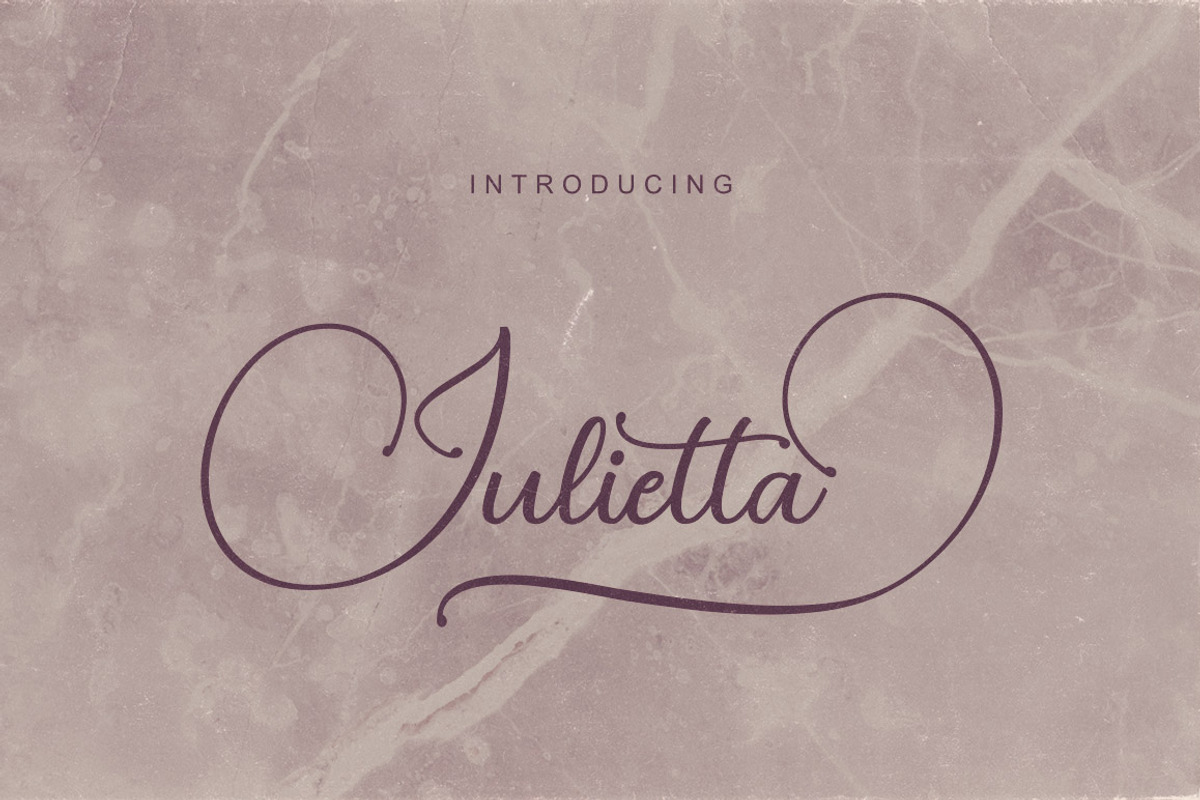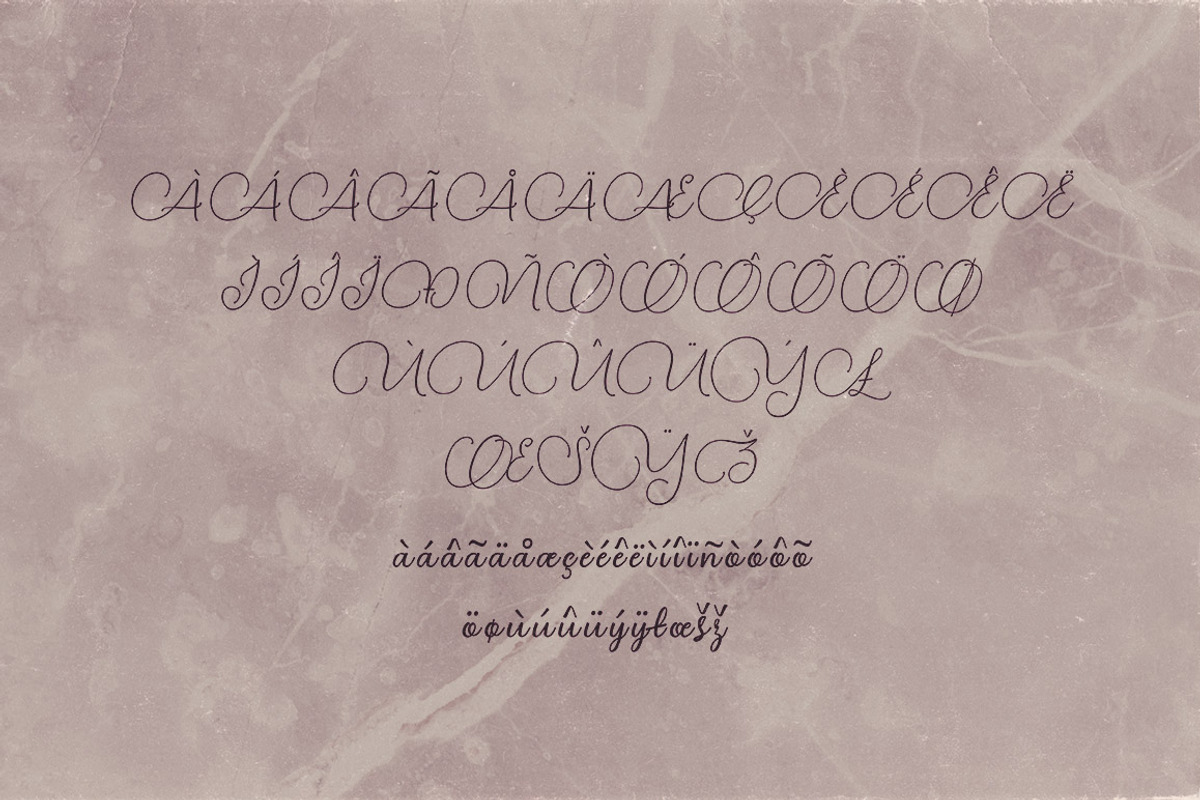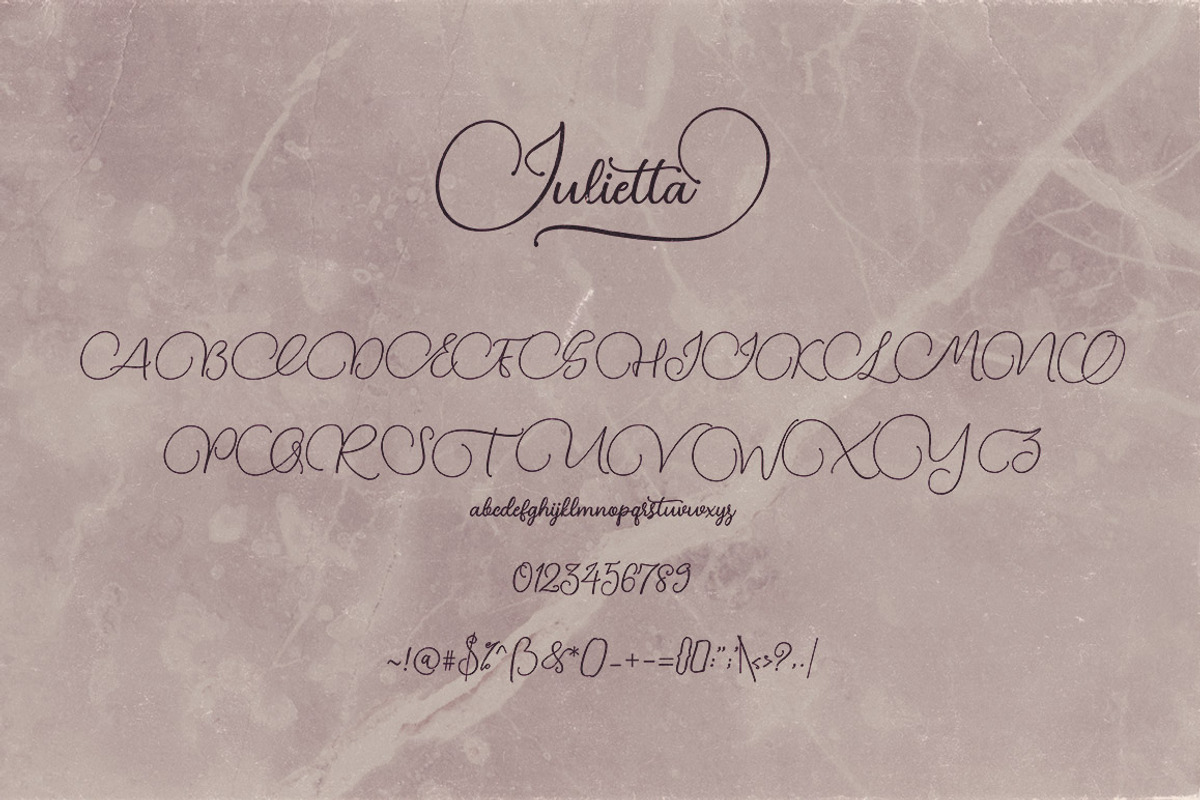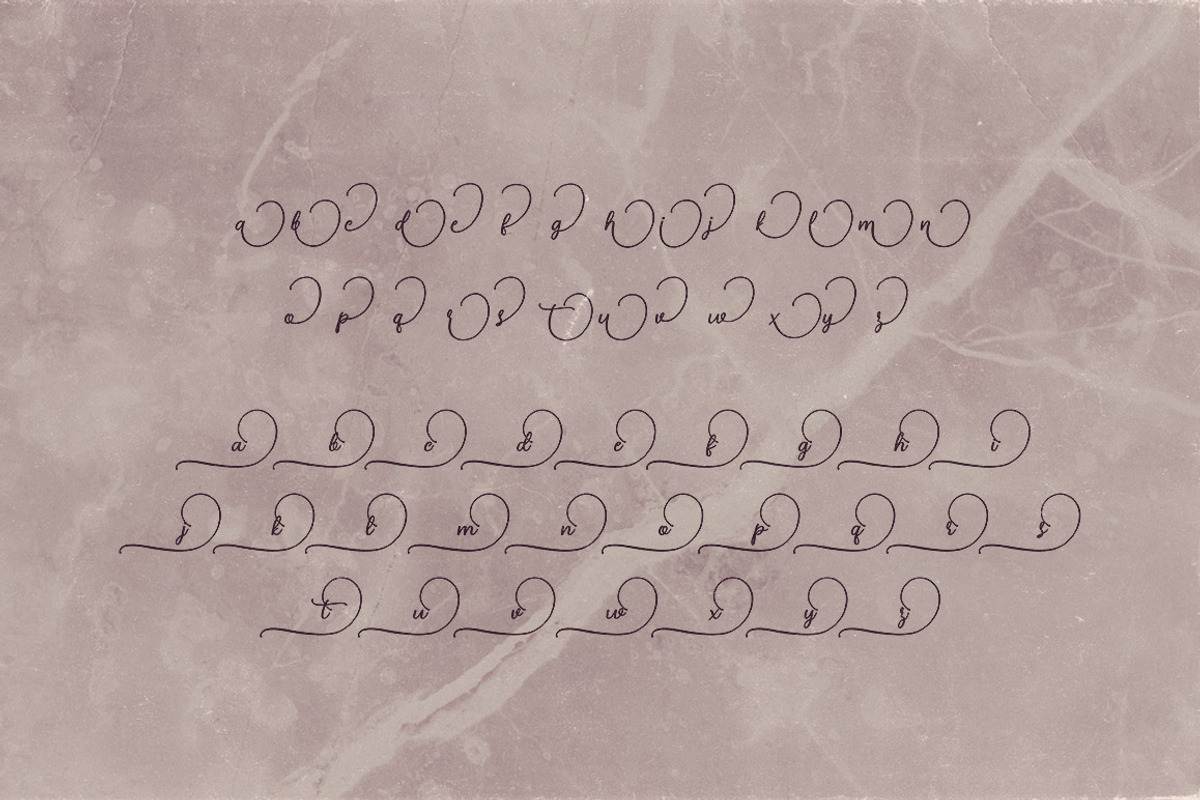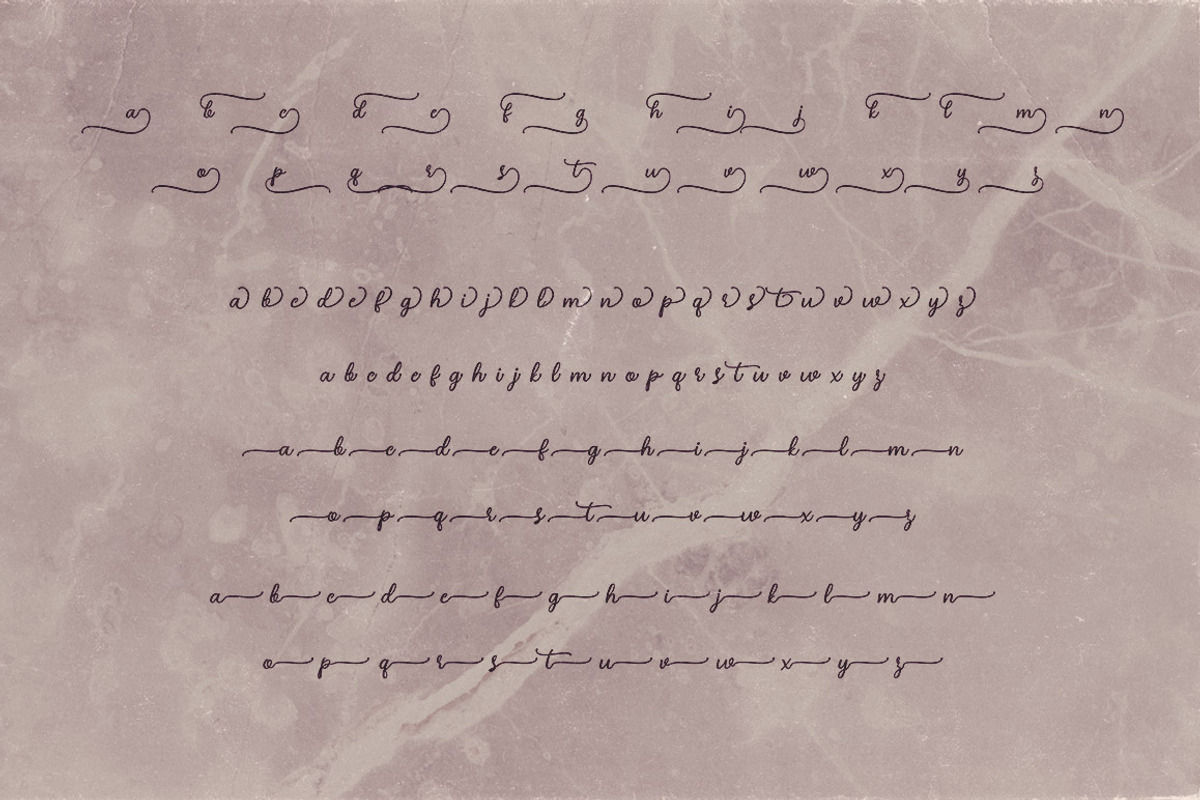
Julietta Script Font
Decorative and handwritten or creative style script font for your new projects. With multi language support and lot of stylistic alternates & swashes. Enjoy ;)
- With multi language support and lot of stylistic alternates & swashes.
Julietta Script Font by Deeezy fits naturally into Branding, posters, packaging, typography.